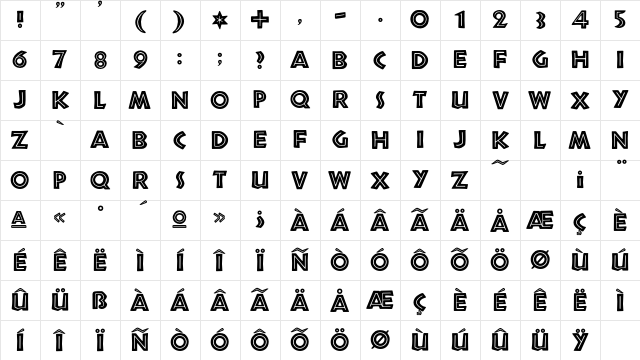
Neuland Inline
Style: Inline
Design Context for Neuland
Neuland is built around its visual character rather than neutral utility - its distinctive forms are designed to make an impression at display sizes.
Font Pairing: Pair with a clean neutral sans-serif for body copy to let Neuland's character lead without overwhelming the composition.
Pro Tip: Use Neuland exclusively at display sizes - it was designed to be seen, not read at length. Let a neutral companion handle body copy.